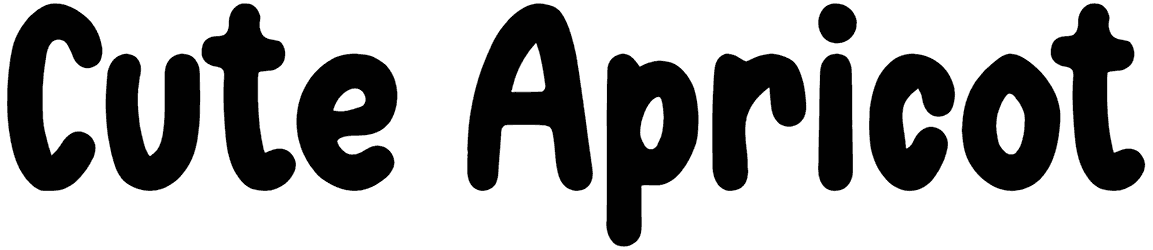
Cute Apricot Font
Imagine a new project illustration that comes up with such a friendly, fun design, keeping the whole eye staring at the results. That’s what this impressive handwritten font is designed to pursue. With a fresh spirit incorporated into its concrete texture like royals, the Cute Apricot font is impossible to look at in any other mode.